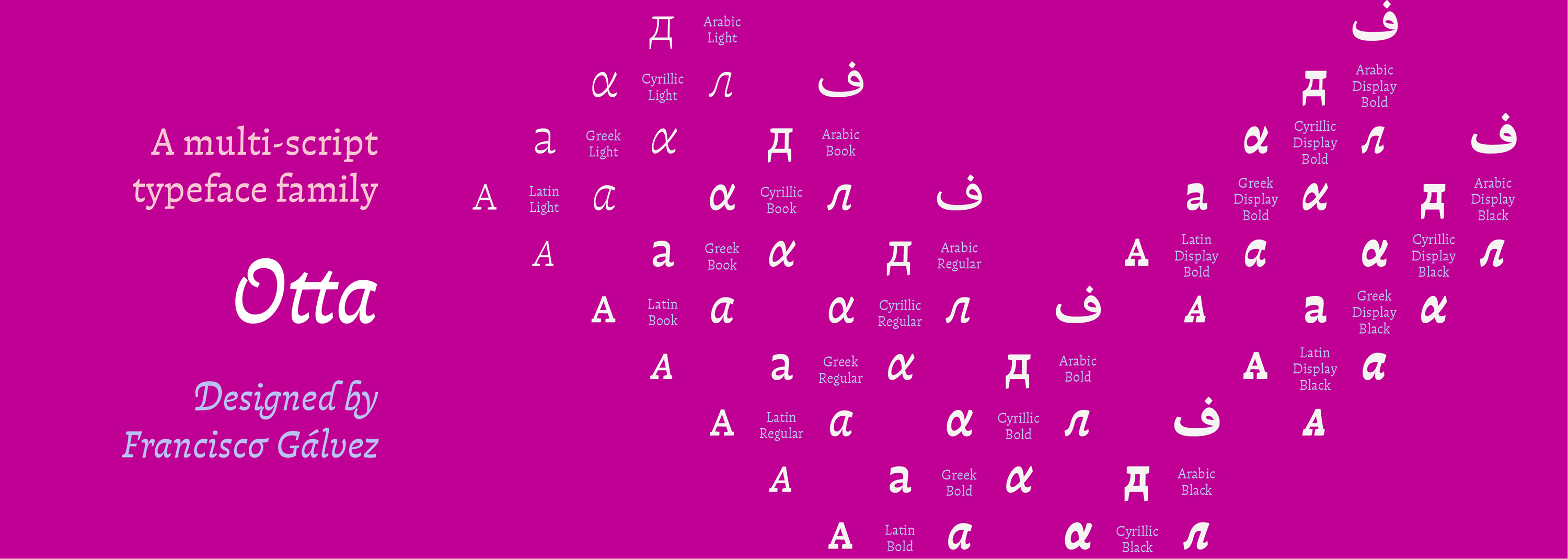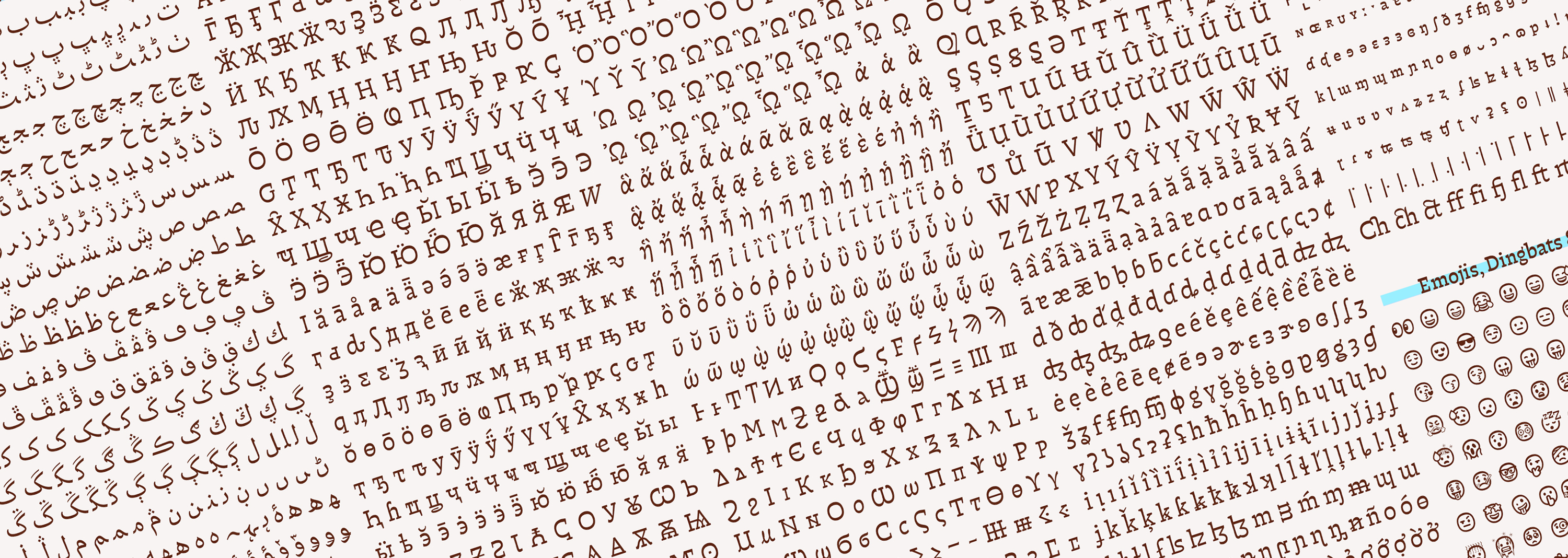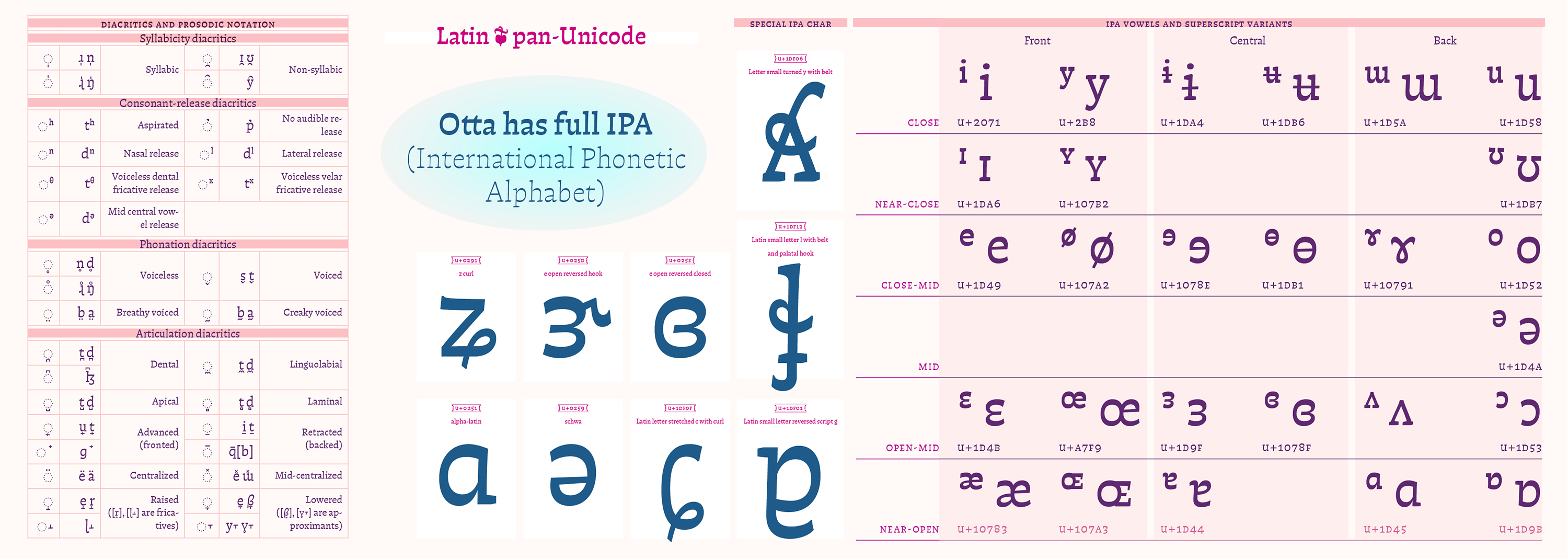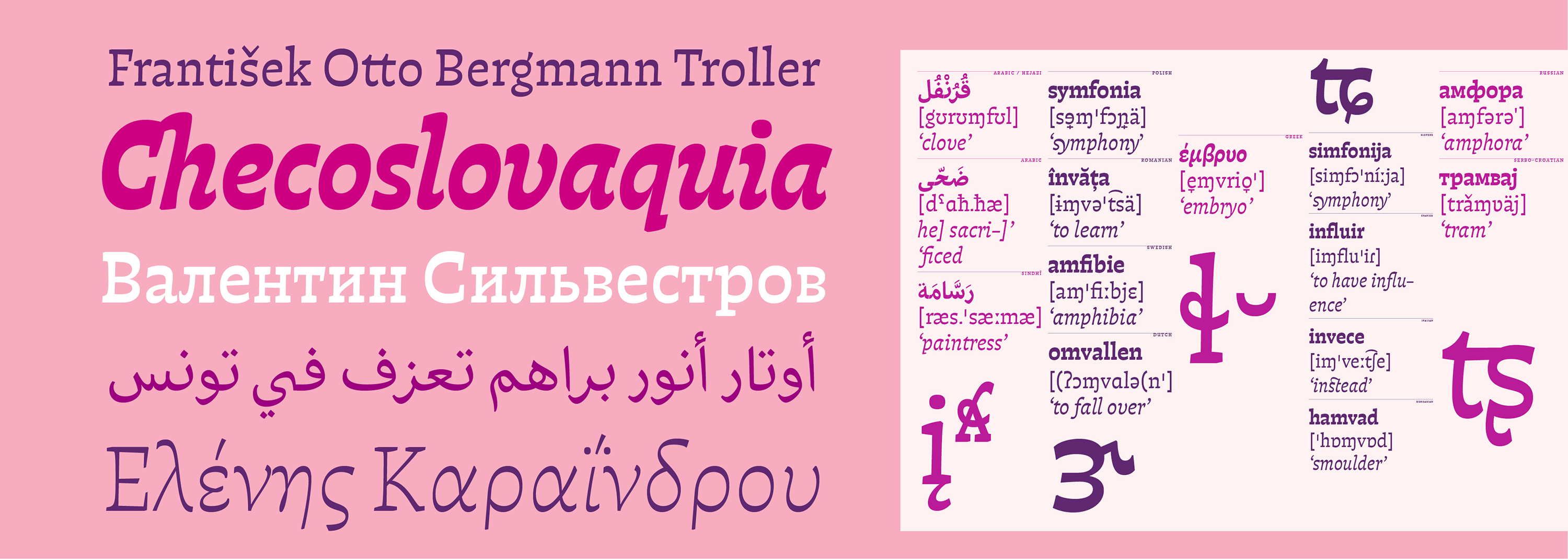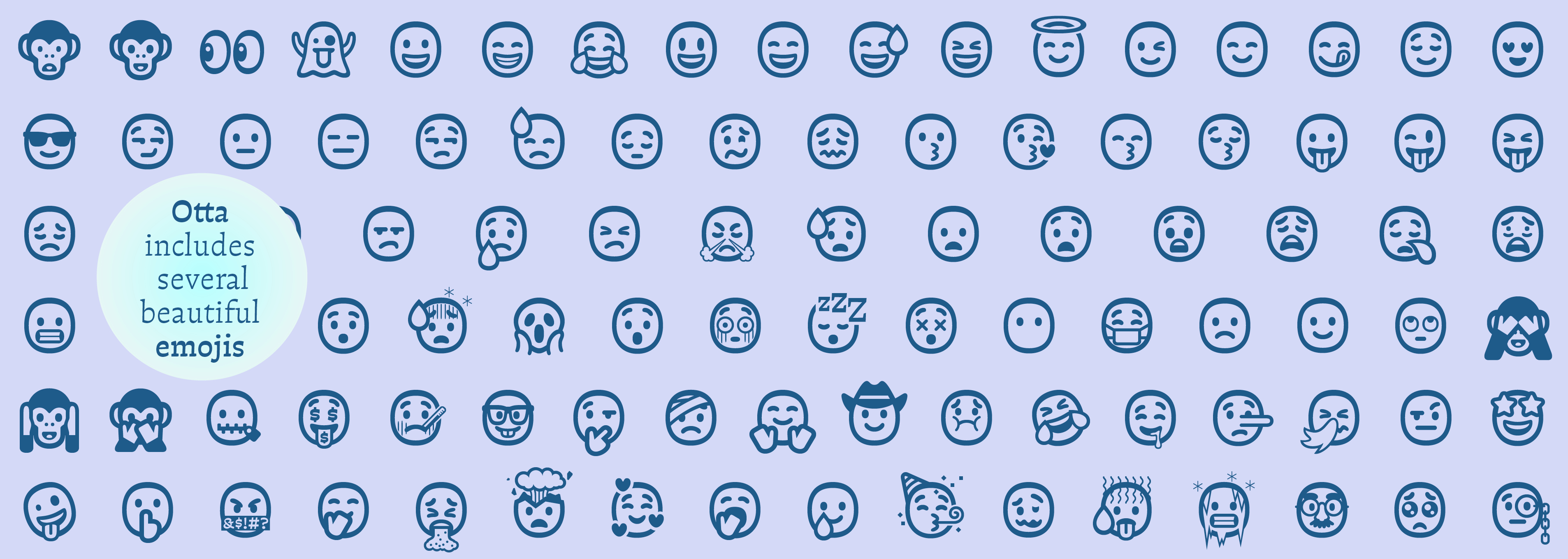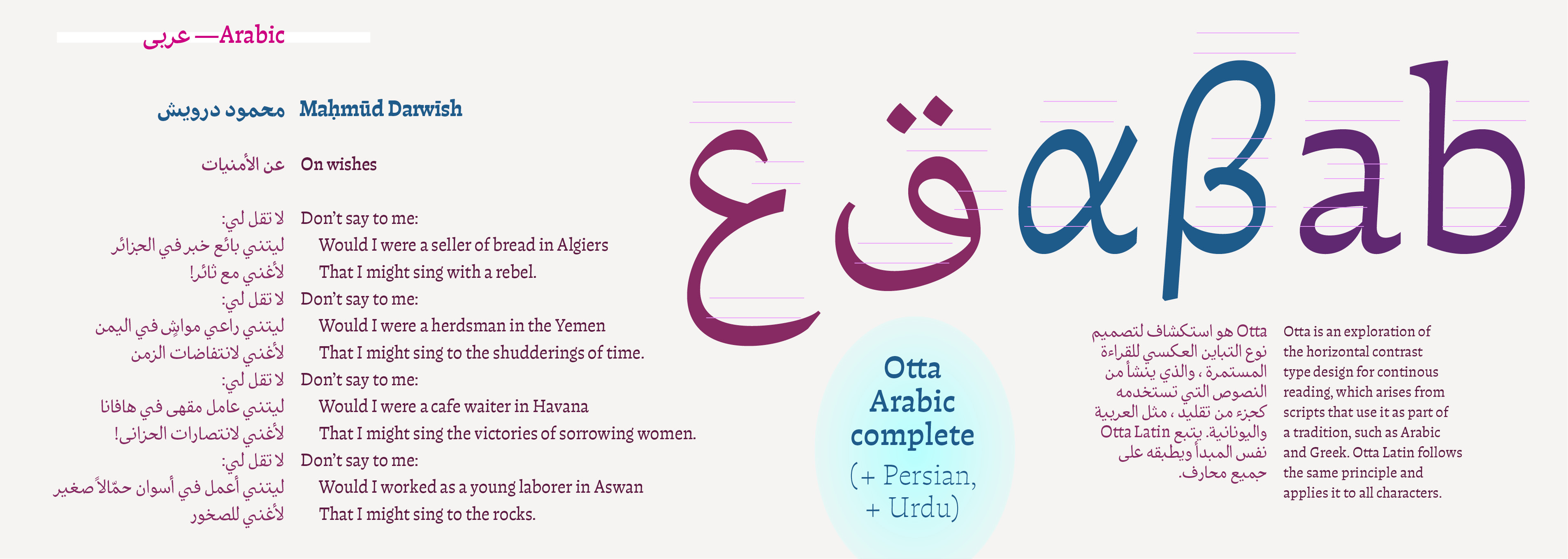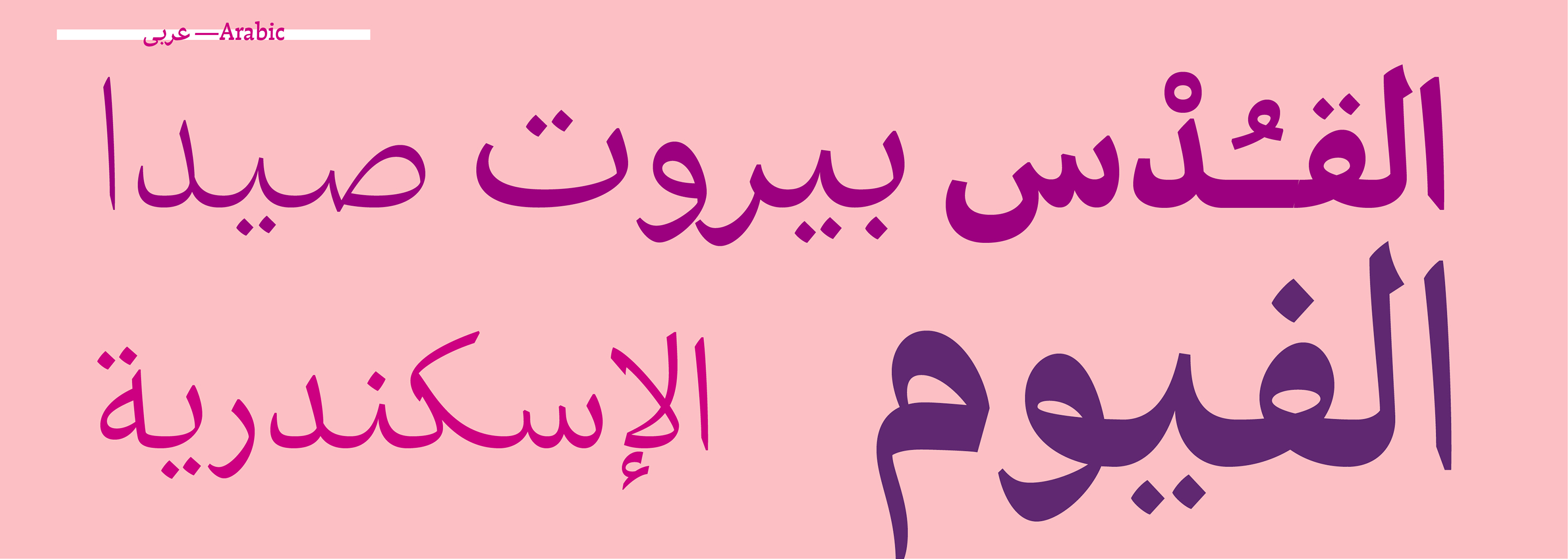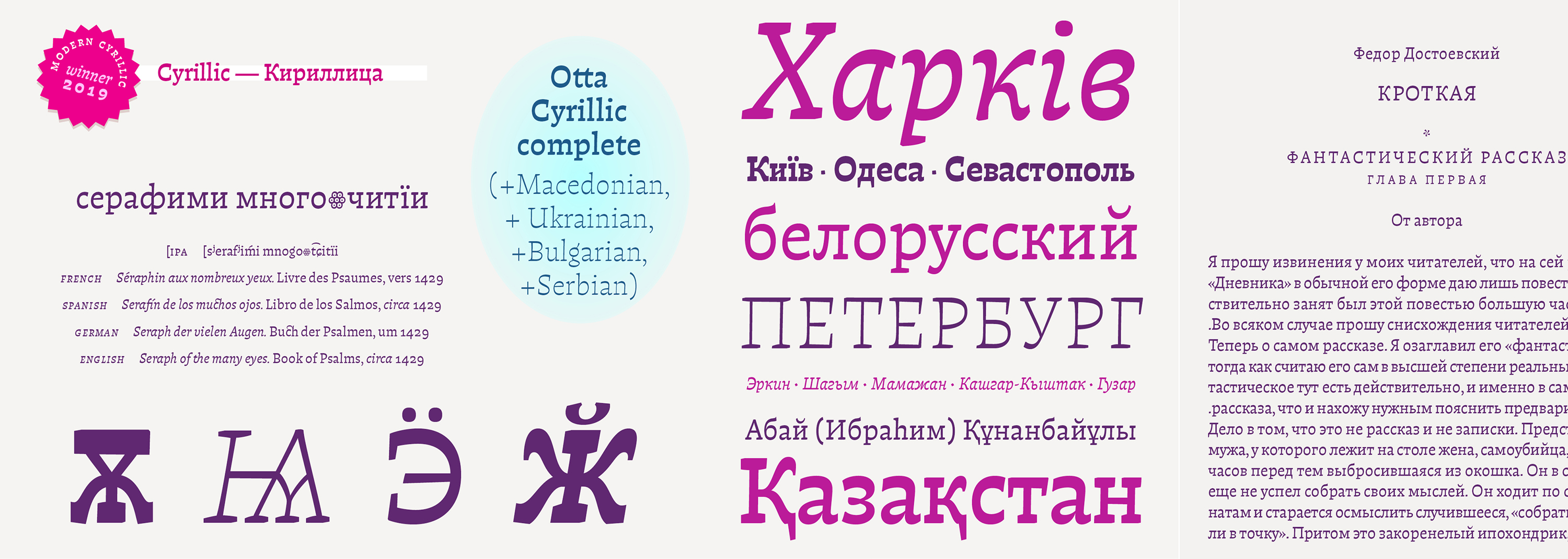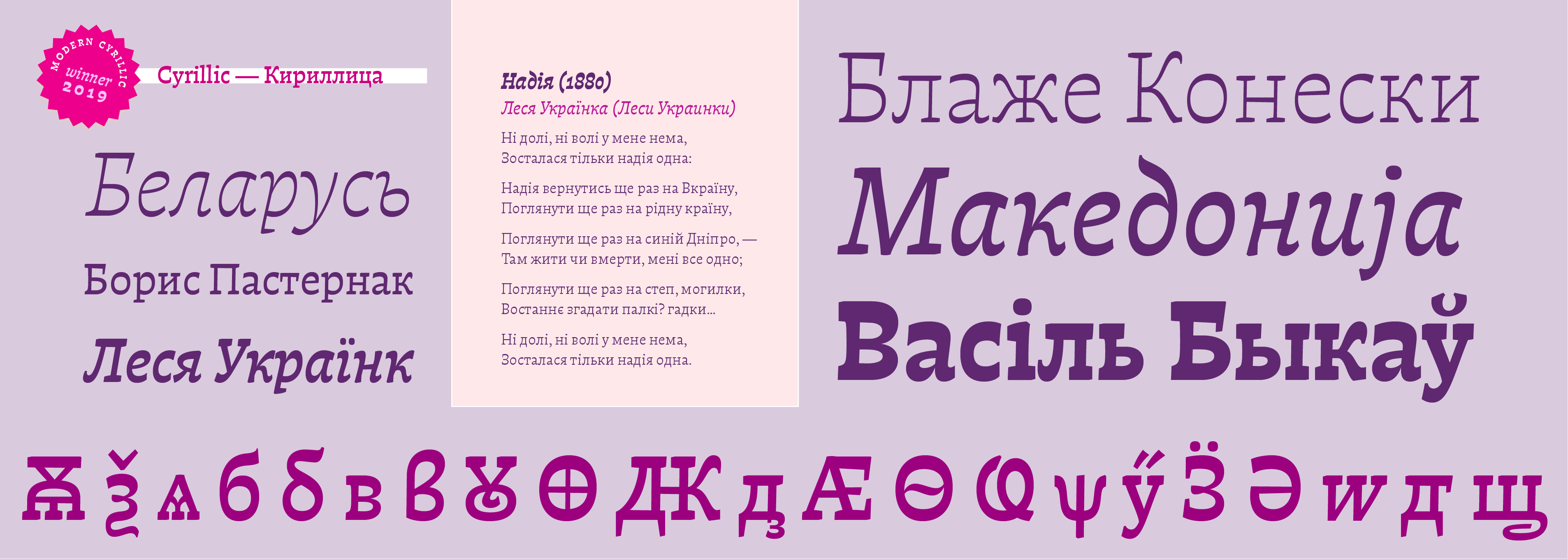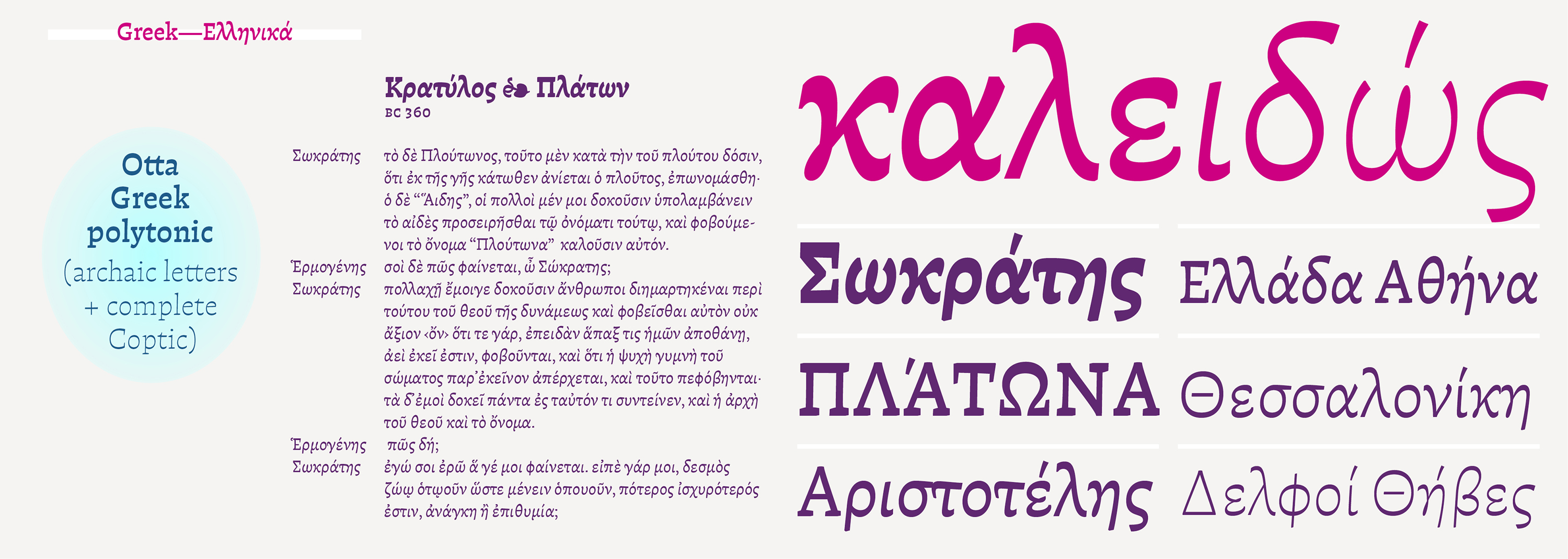
Hand-drawn body, humanist soul
As a sensitive counter-response to the advance of AI in all fields, Otta aims to vibrate on a profoundly human frequency. Its gentle, organic tone seeks a return to the human sense, to the delicacy of the artisanal and the handmade. Otta has been carefully drawn under a criterion of rhythm that aims to synthesize both calligraphic and typographic forms suitable for continuous reading. Like other typefaces in our library, Otta is also the result of an exploration of horizontal contrast in type design, this time following the example of scripts that use it as part of their tradition, such as Arabic and Greek. Otta is also an ambitious multi-script family, it was specifically designed by Francisco to compose his own book on typography ‘Hacer y Componer’ (‘Making and Composing’) — a must-read for type lovers, in which he needed to combine on a single page various scripts in a harmonious way. Otta is undoubtedly Francisco Gálvez's greatest type design achievement to date, and the PampaType team is proud to publish it.
The story behind Otta
Otta
Designed and produced by
Francisco Gálvez Pizarro.
Characteristics
• Language coverage
Otta
—Latin pan-Unicode
(with IPA, PanAfrican, Pinyin, Vietnamese)
Otta PE (PanEuro)
—Latin pan-Unicode
(with IPA, PanAfrican, Pinyin, Vietnamese)
—Cyrillic complete
(with Bulgarian, Macedonian, Serbian, Ukrainian)
—Greek complete
(modern, polytonic, archaic letters, Coptic, Nubian)
Characters per font
Otta roman = 2,592 / Otta italic = 2,932
Otta PE upright = 4,947 / Otta PE italic = 5,248
Features & Specials
standard Cyrillic
extended Cyrillic
Bulgarian
Bulgarian cursive
Historic Bulgarian
Serbian & Macedonian
Ucranian
modern & polytonic Greek
alternate Prosgegrammeni
archaic Greek
coptic
latin fully extended
pan african latin
Vietnamese transliteration
IPA phonetics
Ligatures
Discretionary ligatures
Alternate glyphs
Swashes
Alternate Swashes
Special combinations for ¿
Special combinations for ?
Smallcaps
All Smallcaps
Historic & taxonomic forms
Extended currencies
Old style figures
Lining figures
Smallcap figures
Tabular old style figures
Tabular lining figures
tabular smallcap figures
Extended fractions
ordinals
Arrows
Dingbats, symbols
Emojis